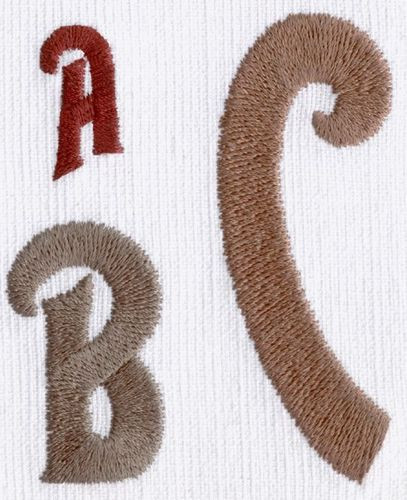
042 Houdini SatinFill Font
Houdini Monograming/Lettering Embroidery Design Set comes in 1", 2" and 3" tall capital letters. Each size features contour satin fill stitching.